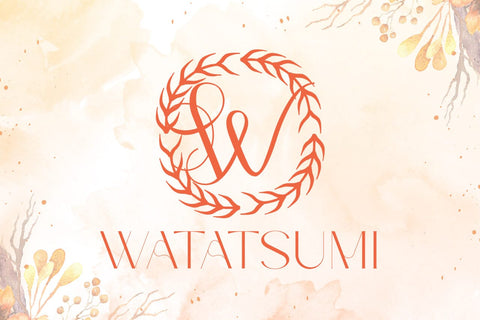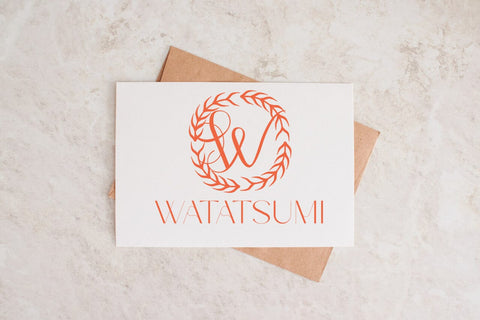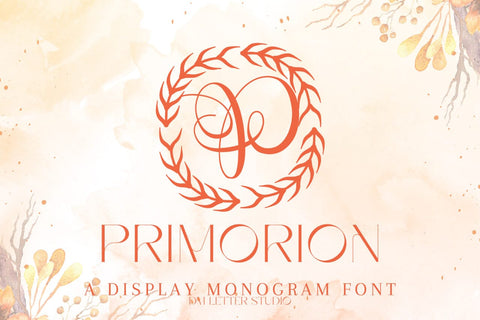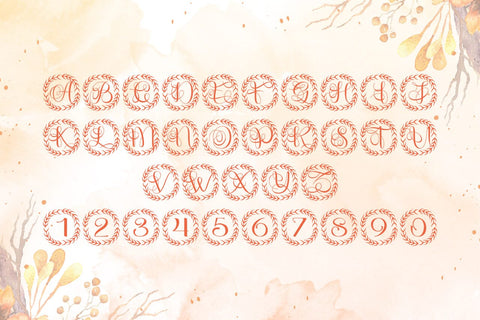
Primorion Monogram Font
Meet Primorion, the Monogram Font
Primorion Monogram Font turns simple initials into sleek, boutique-ready emblems with a touch of modern luxury. Lines feel smooth and confident. Open counters keep tiny tags readable and thumbnails crisp. Use it for wedding suites, boutique logos, keepsake gifts, foil seals, stationery, and premium packaging. In addition, Primorion pairs beautifully with a refined serif or a neat humanist sans, so layouts stay elegant without extra work.
Where this monogram font shines
Set single, double, or triple initials for logos, seals, menus, and place cards. Then frame them with laurel rings, ovals, rope circles, or fine rules to echo the balanced geometry. Since the proportions favor symmetry and clarity, centered compositions come together in minutes. As a result, your listings look consistent across invitations, signage, boxes, and tags. Primorion also scales smoothly from jewelry cards to foyer displays.
Design tips for Primorion Monogram
Keep initials large and let white space breathe. Pair the hero mark with a soft serif for body copy or a clean sans for dates and labels. Add micro shadows, a fine inner stroke, or a delicate frame for depth. Because the forms feel airy and polished, textured papers and metallic foils raise perceived value. Keep copy short so the monogram remains the hero on favors, tags, and wax seals.
Select stylistic alternates for key letters
Curves tuned for foil, letterpress, engraving, laser cutting, and clean vinyl paths
Why creators choose this monogram font
You want elegance that reads at a glance and sells across many product types. Then, Primorion Monogram Font delivers steady clarity, quick layout, and a cohesive brand voice from invites to packaging and gifts.